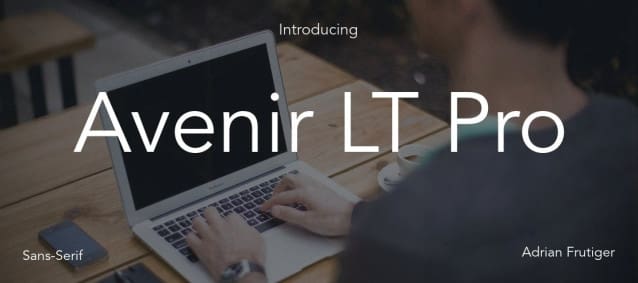
Avenir Pro Font Family
Avenir Pro Font Family, when designing the Avenir® typeface, Adrian Frutiger drew inspiration from both the past and the future. His goal was to reinterpret the geometric sans-serif designs of the early 20th century into a typeface that would prefigure the aesthetics of the 21st century. He succeeded brilliantly. In doing so, Frutiger added a touch of organic humanism to the design, freeing Avenir from the rigid geometric connotations of previous designs. Avenir is used for signage at Dallas Fort Worth International Airport and Hong Kong International Airport. The city of Amsterdam adopted Avenir as its corporate typeface in 2003. The original Avenir family consists of designs that have been progressively modified in weights to meet the needs of specific text applications. While the Book and Light weights have similar stroke widths, the Book weight is well-suited for body text, while the Light weight was designed for captions and subheadings.